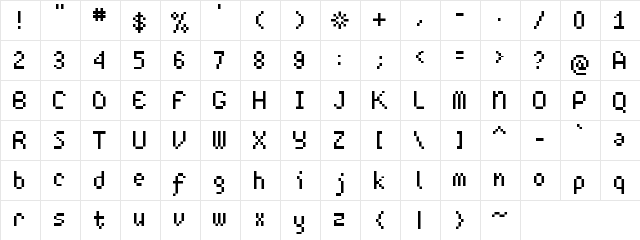
screenyjubs Regular
screenyjubs offers clean, dependable letterforms without strong stylistic allegiance, making it a practical choice for designers who need flexibility.